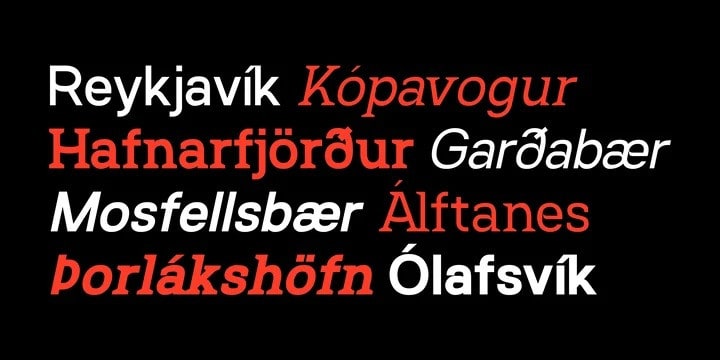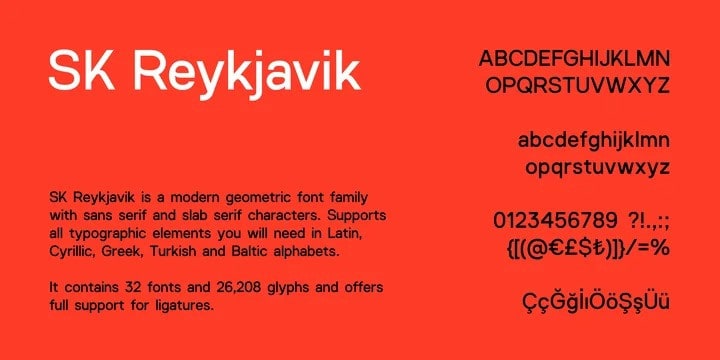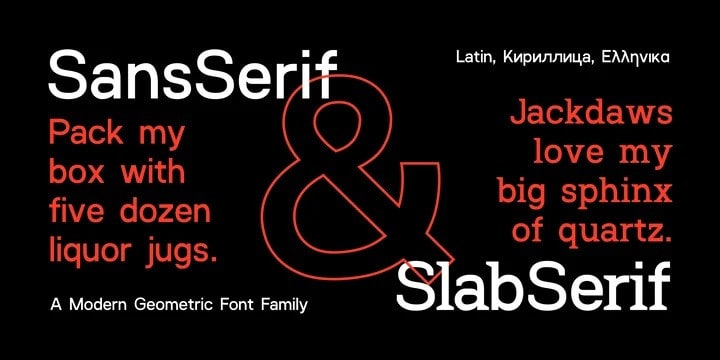
SK Reykjavik Sans Serif Font
SK Reykjavik Sans Serif Font is a versatile wide typeface, inspired by motion and globalization. Suited for a maximum visual impact, includes two weights with true matching obliques. Made from font designer named Salih Kizilkaya. This typeface is a modern geometric font family with sans serif and slab serif characters. Supports all typographic elements you will need in Latin, Cyrillic, Greek, Turkish and Baltic alphabets. It contains 32 fonts and 26,208 glyphs and offers full support for ligatures.